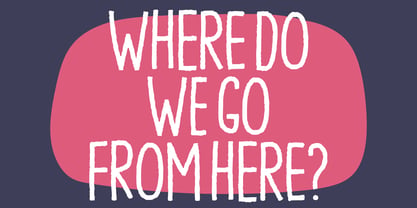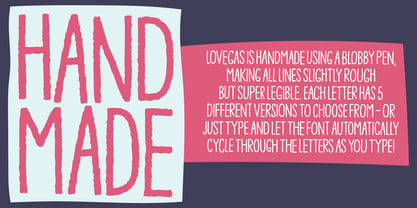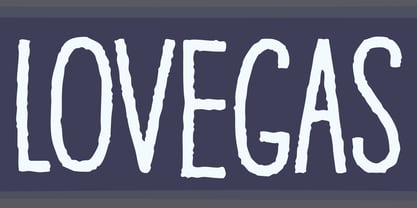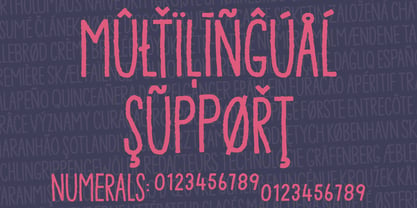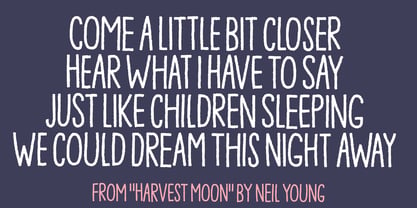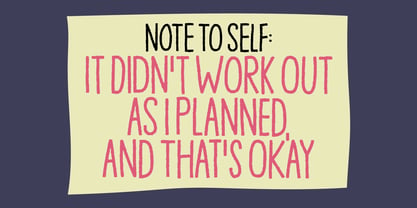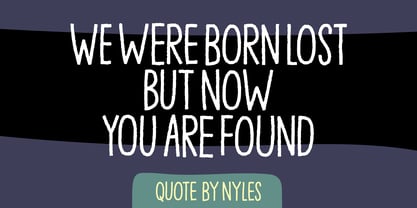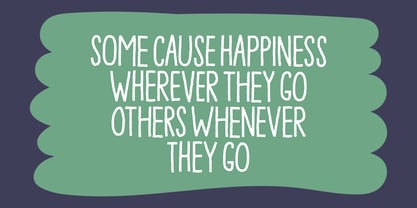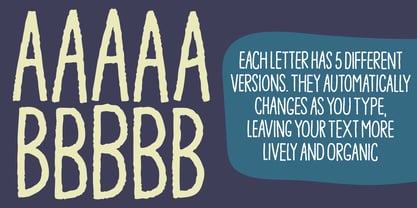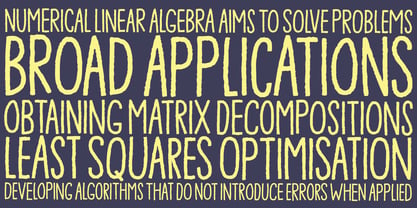
Lovegas
by PizzaDude.dk
The Lovegas Font Family was designed by Jakob Fischer and published by PizzaDude.dk. Lovegas contains 2 styles and family package options. More about this family
Lovegas is my handmade all-caps font created with an organic pen features irregular, slightly imperfect letterforms with natural ink flow and subtle texture. It has a raw, expressive feel, often with varying stroke thickness and slight waviness, giving it a warm, authentic, and artisanal look.